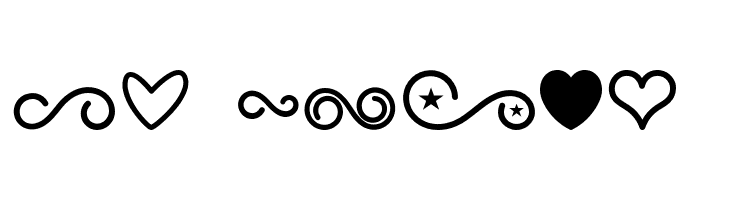
A playful, casual handwritten font with smooth, flowing lines and consistent stroke width.
A modern, geometric font with sharp angles and circular elements.
A playful and elegant script font with calligraphic flair.
A bold, playful font with rounded strokes and a bubble-like appearance.
A bold, playful font with rounded edges and a hand-drawn feel.
An elegant, cursive script font with fluid, graceful strokes.
An elegant, italicized script font with bold strokes and high contrast.
A conceptual display font using peace symbols, question marks, and 'think!' in circles.
A playful, hand-drawn font with a casual, whimsical style.
A playful, handwritten-style font with smooth, rounded edges and a casual appearance.
تحظى Orange Blossom, SegmentaSans, Girly Things Demo Version, Thrownup and RUMAGGE بشعبية لخطوطها النظيفة وتطبيقاتها الواسعة — من الهوية البصرية إلى الصفحات المقصودة والملصقات.